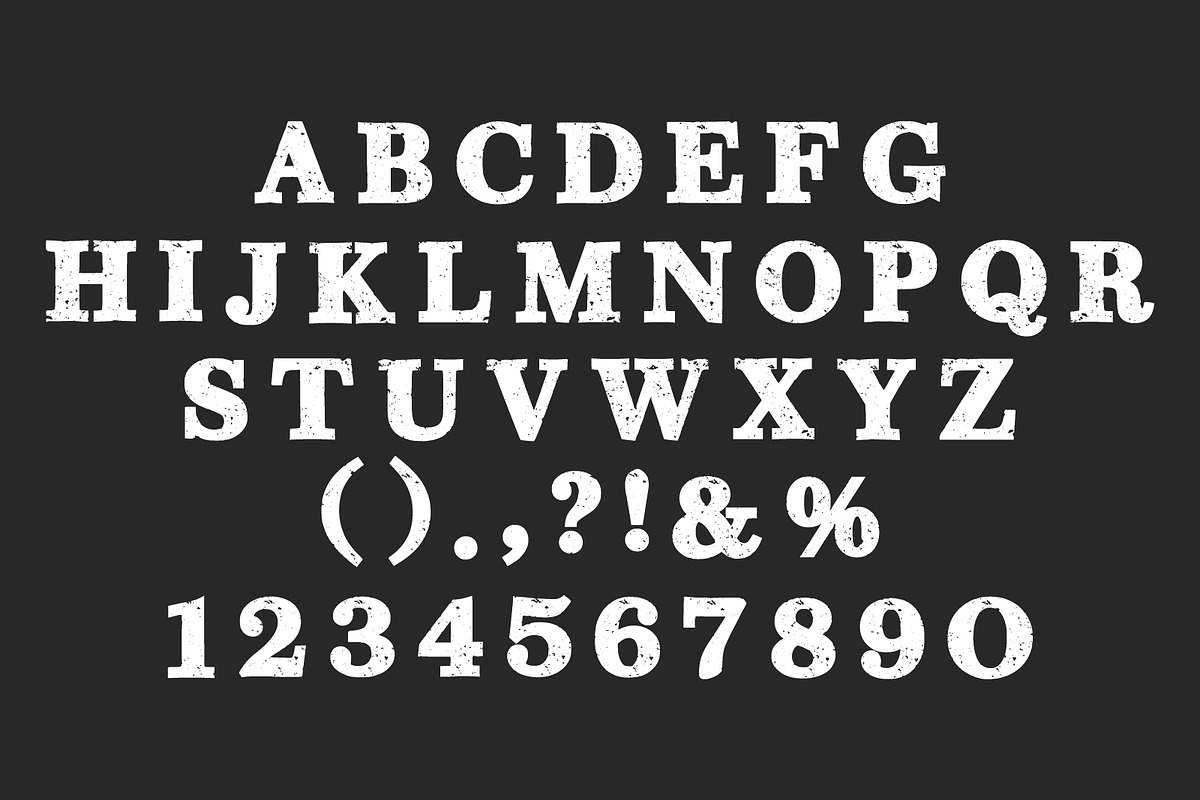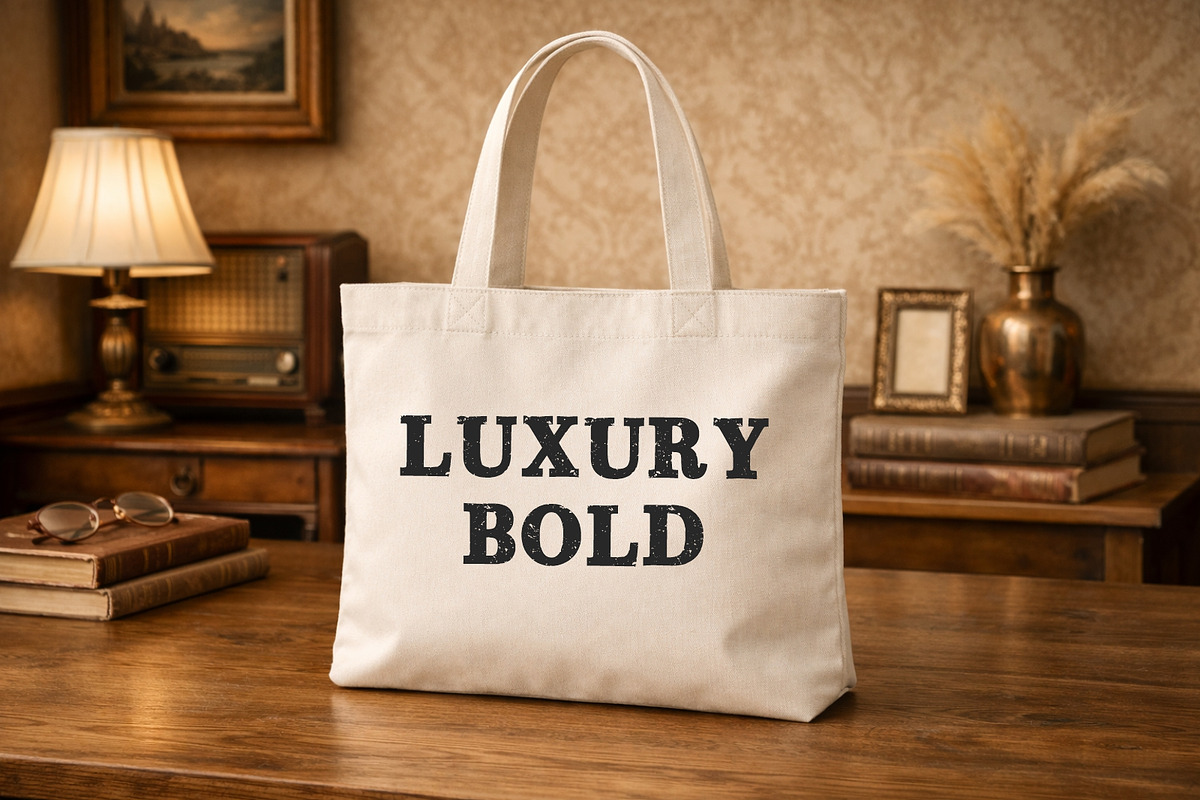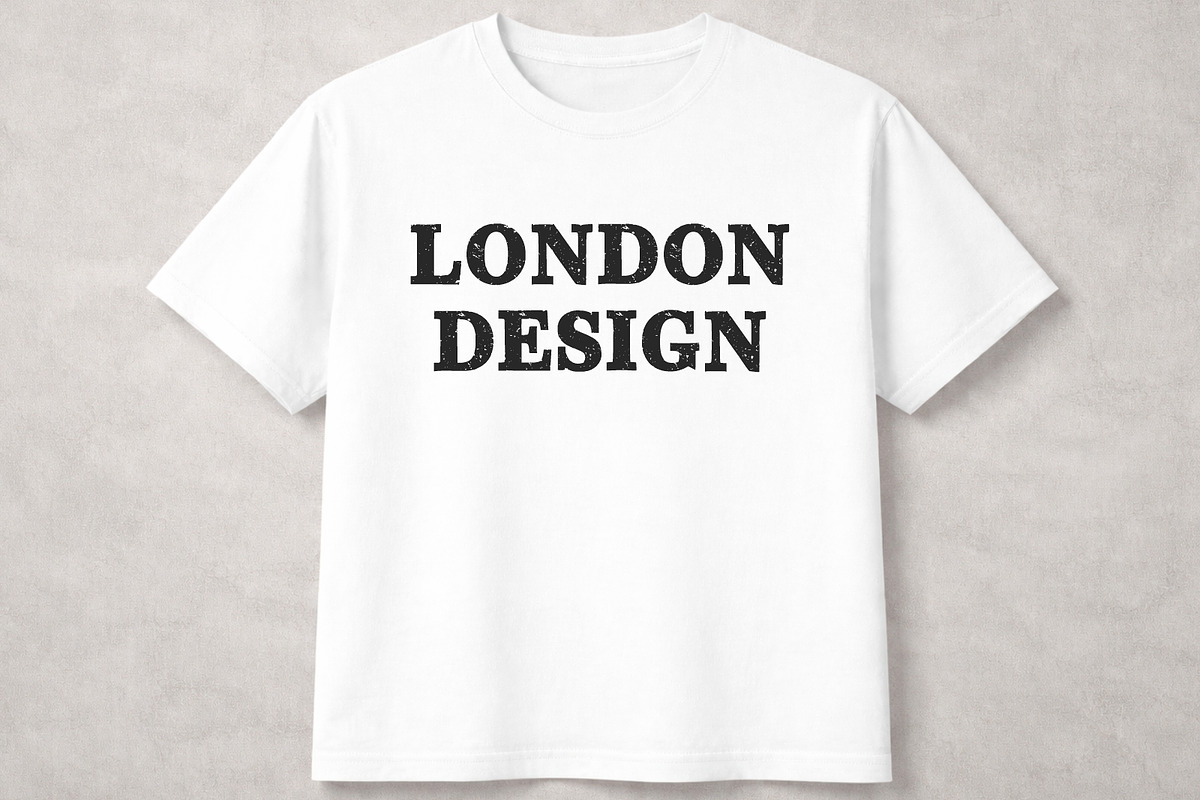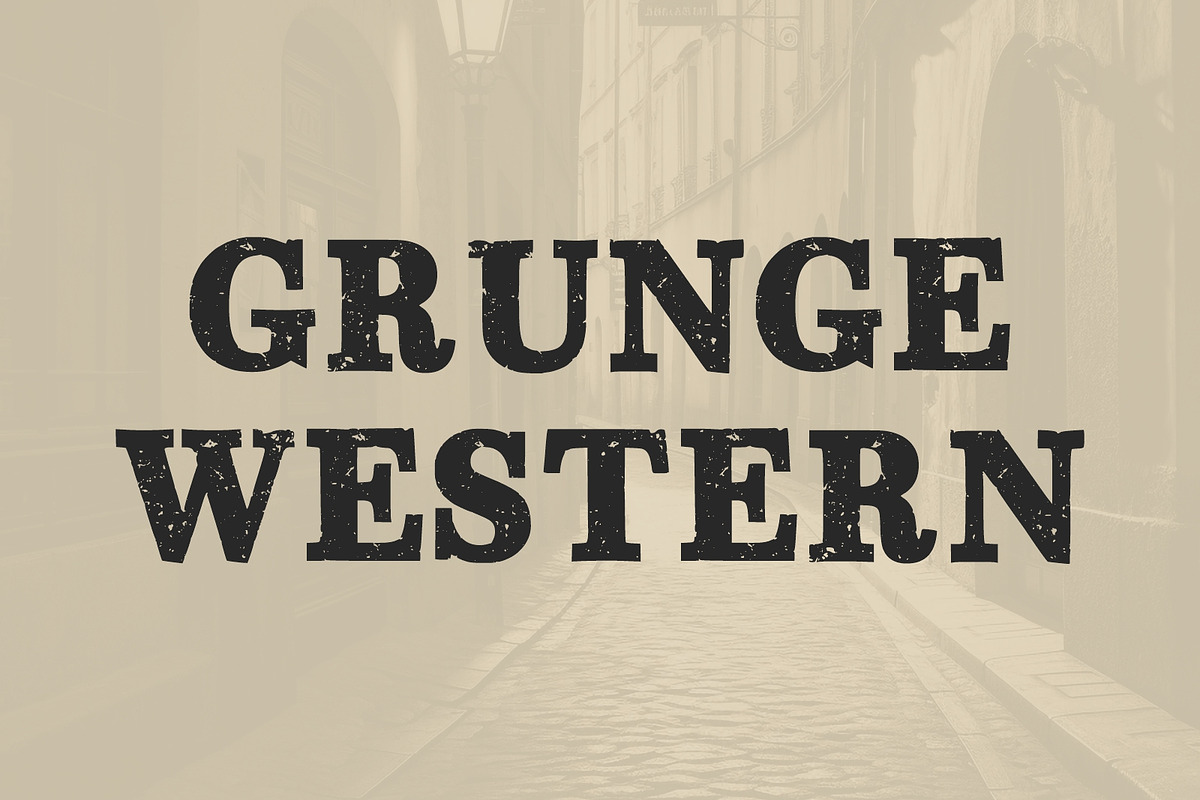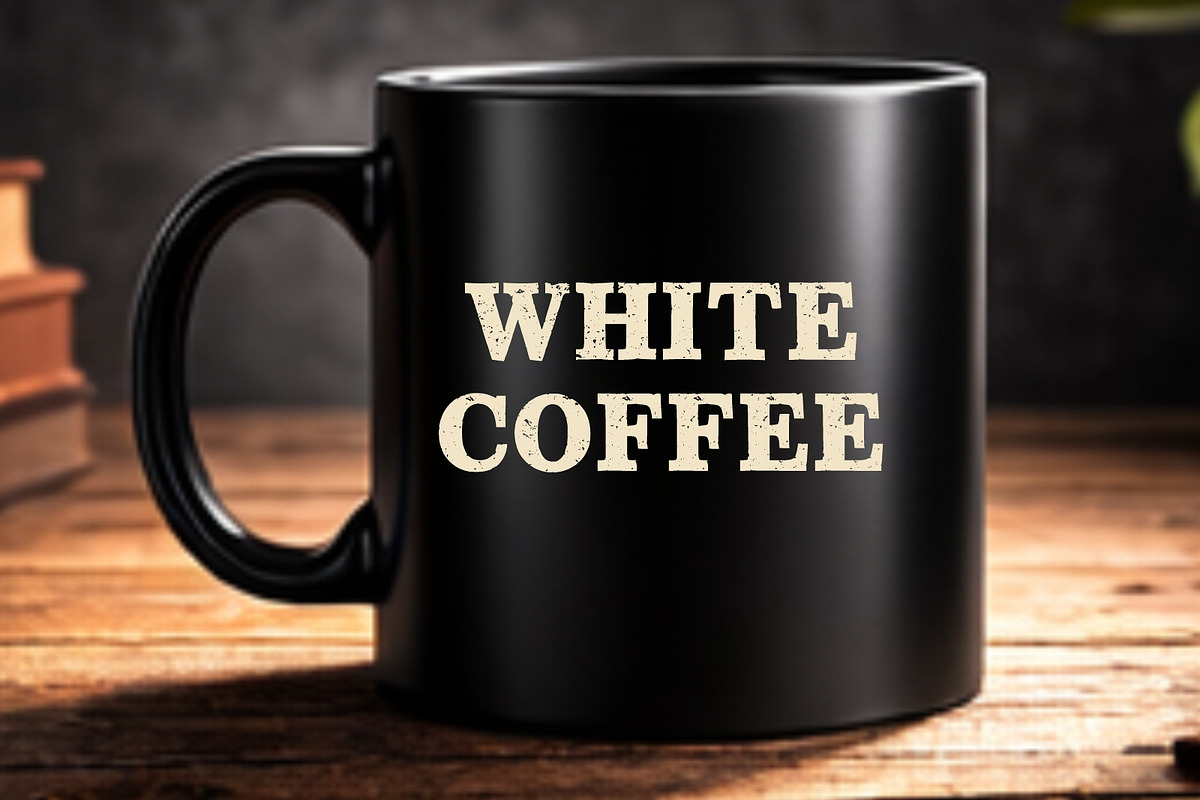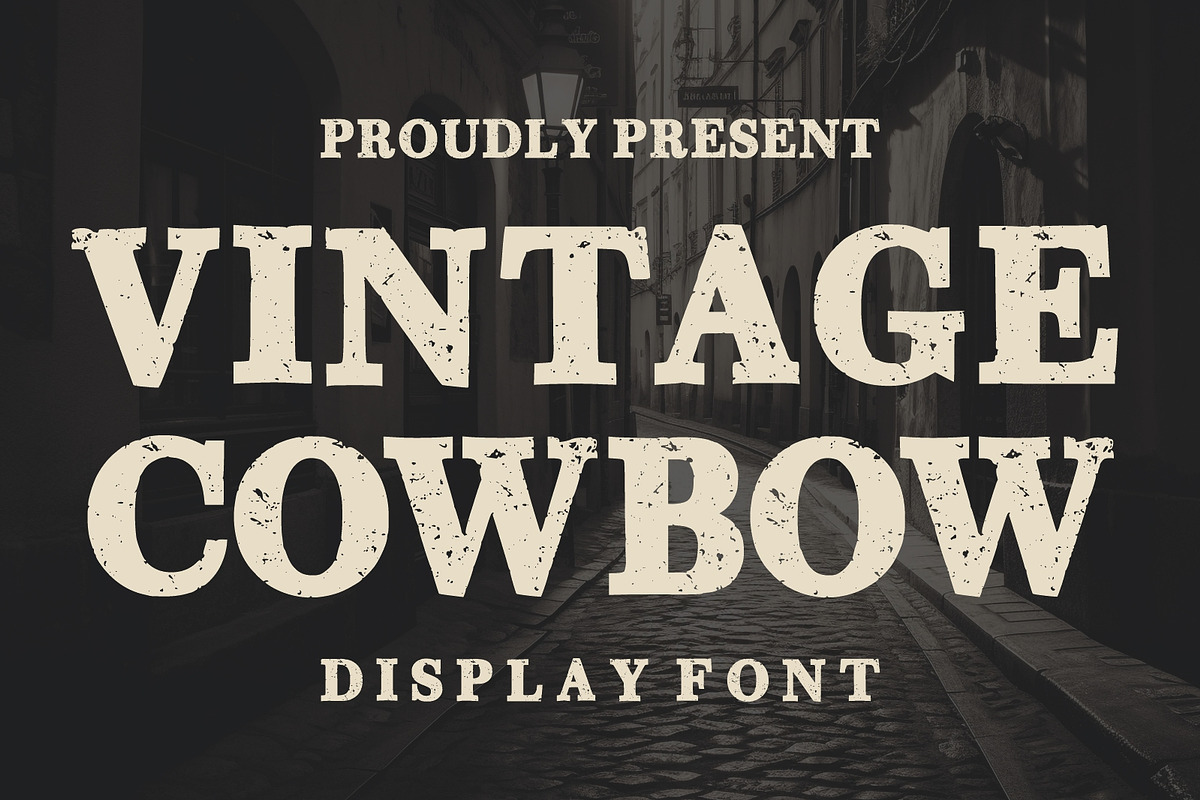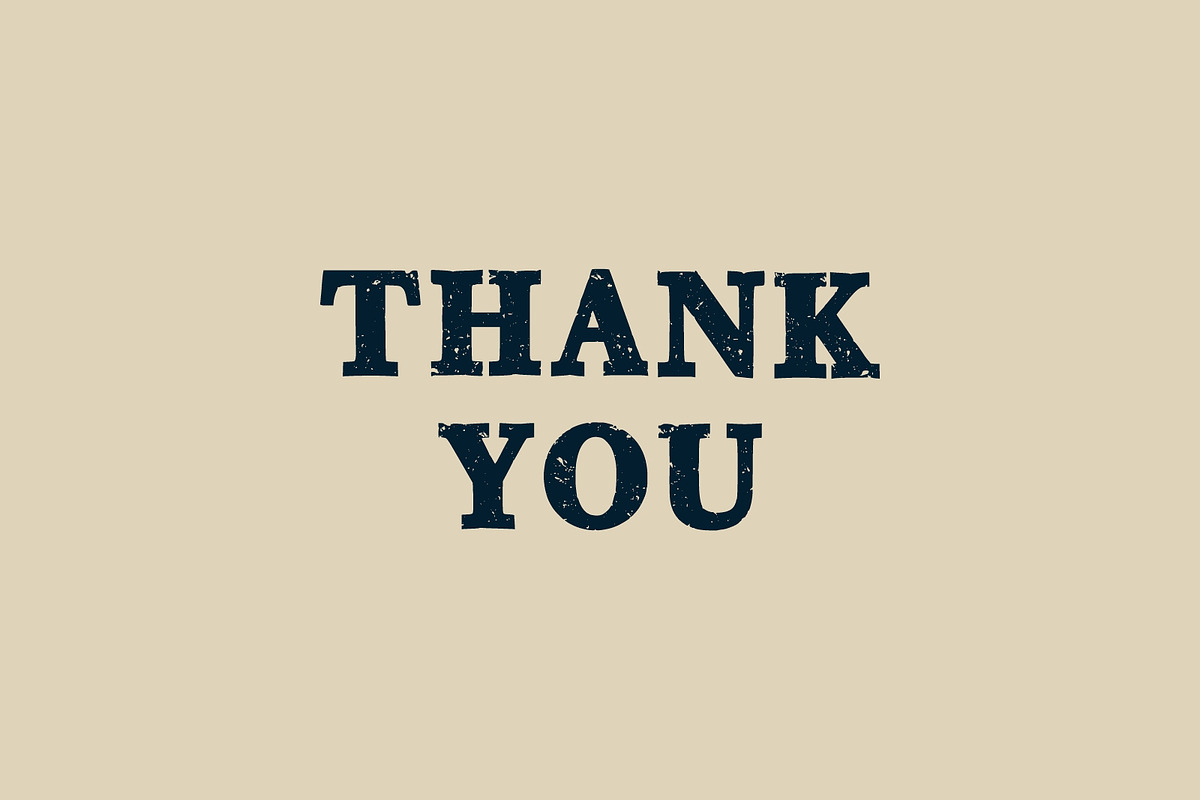
Vintage Cowboy Western Display Font
Vintage Cowboy is a bold western display font inspired by classic cowboy signage, old saloon typography, and rugged vintage aesthetics. Featuring strong serif letterforms with distressed textures, this font creates an authentic wild west and retro western feel.